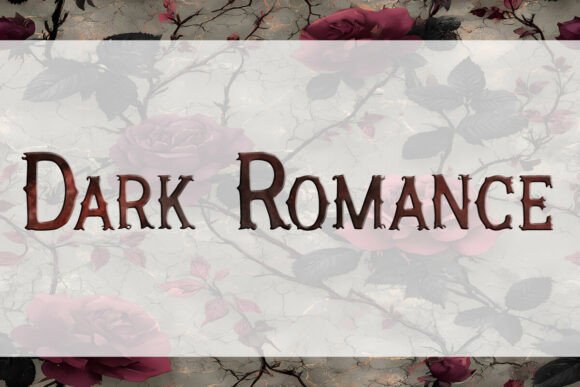
Unlocking the Secrets of Dark Romance Font: A Designer’s Best Friend
I’ll never forget the late nights spent scrolling through font libraries, searching for the perfect typeface to bring my design project to life. My client wanted a bold, eye-catching font that would convey a sense of mystery and allure. That’s when I stumbled upon the Dark Romance Font. It was love at first sight! ✨ In this article, I’ll share my experience with this captivating font, its features, and how to make the most of it in your designs.
An Honest Review of Dark Romance Font
- 💫 Unique character set: The Dark Romance Font boasts a distinctive set of characters that will add a touch of elegance and mystery to your designs.
- ✅ Versatility: This font is perfect for various niches and industries, from luxury brands to Gothic-inspired designs.
- 🔥 Attention-grabbing: The font’s bold and dramatic style is sure to capture the attention of your audience.
While the Dark Romance Font is an excellent choice for many designers, there are a few things to keep in mind: 🤔
- ⚠️ Limited use in body text: Due to its bold and ornate style, this font might not be the best choice for lengthy body text.
The Story Behind Dark Romance Font
The Dark Romance Font was inspired by the works of Edgar Allan Poe and the Gothic Revival architecture of the 19th century. Its creator, a passionate typographer, aimed to craft a font that would evoke the mystery and allure of the dark romance genre. 💀
| Font Name | Dark Romance Font |
| Author | Heidi Vargas-Smith |
Q: What is the Dark Romance Font best suited for?
A: The Dark Romance Font is perfect for designs that require a sense of mystery, elegance, and drama, such as luxury branding, Gothic-inspired designs, and creative projects.
Q: Is the Dark Romance Font difficult to use?